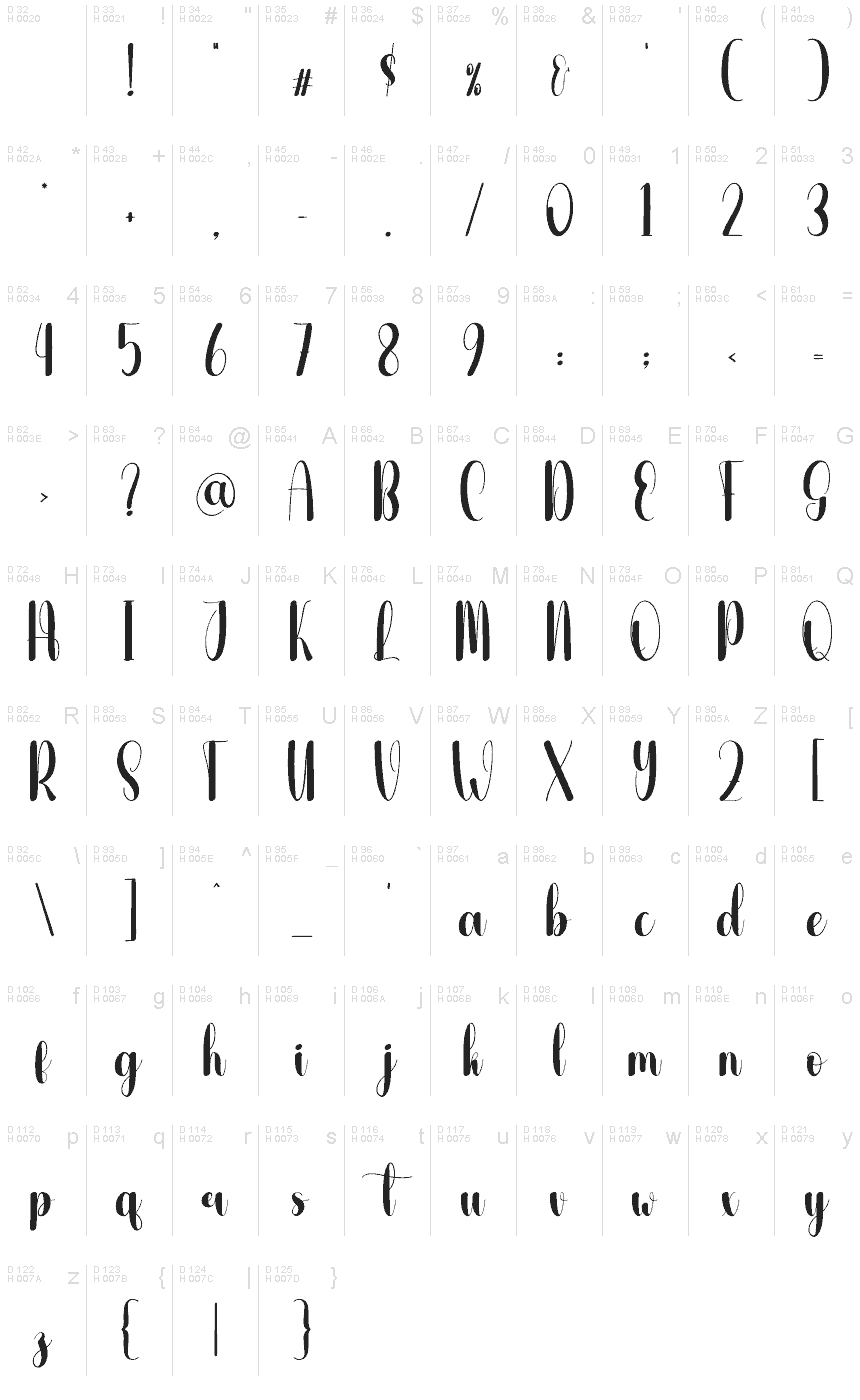
Sand Sea
Sand Sea font by Andi Moz is a handwritten typeface with elegant, flowing characteristics and script-like features. Its graceful curves and decorative flair bring sophistication and a contemporary feel to any design project, making it historically reminiscent of calligraphic styles but suitable for modern applications.
This free handwritten font can be used in wedding stationery, luxury brand logos, invitations, branding projects, posters, greeting cards, websites, social media graphics, book covers, and packaging designs.